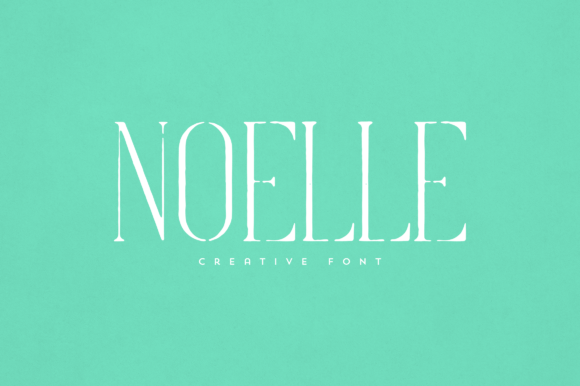
Noelle Font is a stunning display font that marries elegance with versatility, leaving an unforgettable mark on your designs. Crafted with precision by vladfedotovv, this font is your secret weapon for creating logos, branding, and more that captivates and inspires.
Imagine your brand name or logo adorned with Noelle's enchanting curves, instantly elevating your identity. It's the perfect font to add a touch of sophistication to your home décor designs, creating a sense of timeless charm. Picture your product packaging adorned with Noelle, captivating customers with its exquisite details.
Unleash your creativity with Noelle, transforming magazine headers into works of art. It's the ideal font for overlaying stylish text onto any background image, adding a touch of elegance to your visuals. With Noelle, you have the power to turn ordinary designs into extraordinary masterpieces.
But wait, there's more! Noelle is not just a font; it's an emotion. It evokes a sense of joy, love, and celebration. It's the perfect choice for wedding hangers, carrying the names of the bride and groom in a way that reflects the beauty and significance of their special day.